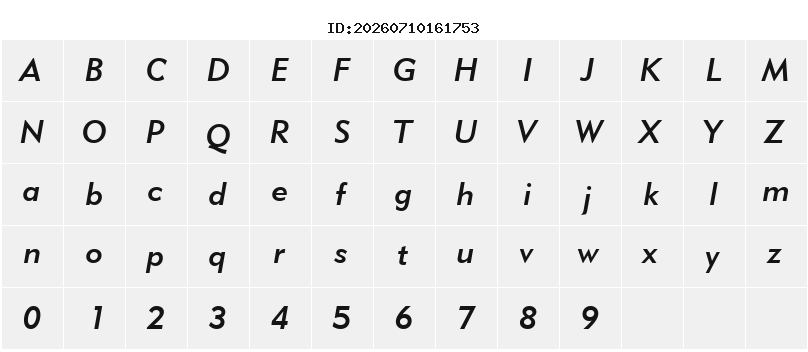
• Font Name: Geometr415 Md BT
• Font Style: Medium Italic
• Font ID: Geometric 415 Medium Italic
• Full Font Name: Geometr415 Md BT Medium Italic
About Geometr415 Md BT.ttf
Geometr415 Md BT.ttf is a modern, elegant sans-serif font designed for ultimate readability and visual harmony. Perfect for branding, headlines, web design, and print materials.